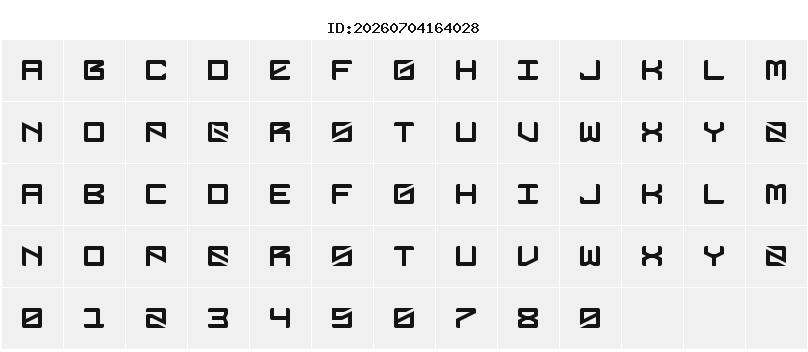
• Font Name: DubbingStar
• Full Font Name: DubbingStar Regular
• Designer: NAL
• Description: “DubbingStar” was built with FontStruct
About DubbingStar.ttf
DubbingStar.ttf is a modern, elegant sans-serif font designed for ultimate readability and visual harmony. Perfect for branding, headlines, web design, and print materials.